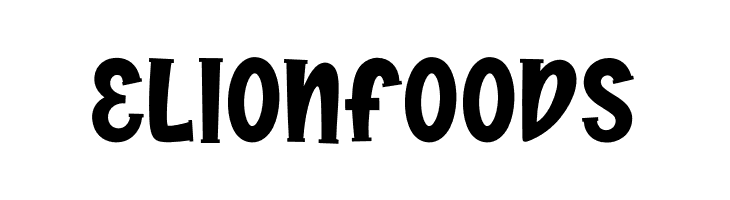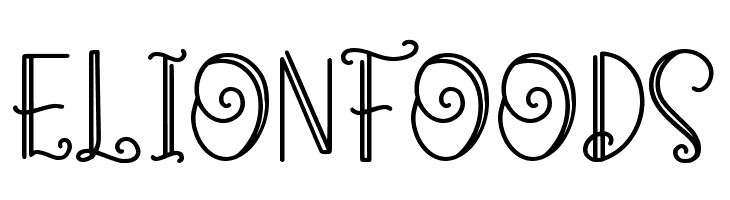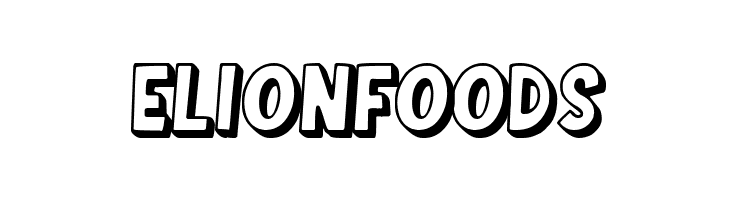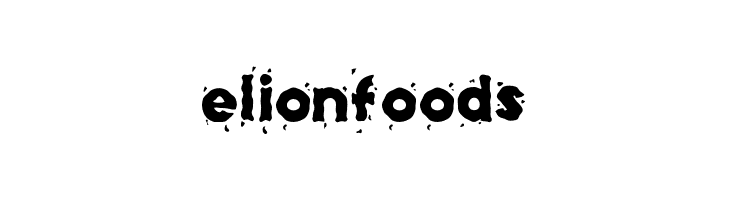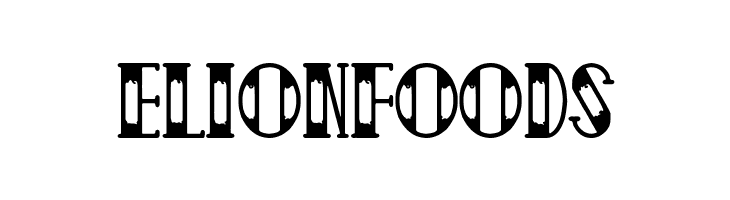
A bold, playful font with a whimsical, hand-drawn style.
A whimsical and artistic font with characters resembling abstract faces.
An abstract, decorative font with a mystical, ancient script feel.
A playful and whimsical font with curly, decorative strokes.
A bold, playful font with a shadowed, three-dimensional effect.
A playful, splattered ink-style font with irregular edges.
A playful, bold, and rounded font with a whimsical charm.
An elegant serif font with elongated strokes and a refined, classic appearance.
Bold, pictographic police and law enforcement icon set.
A bold, traditional tattoo-inspired font with strong, sharp characters.